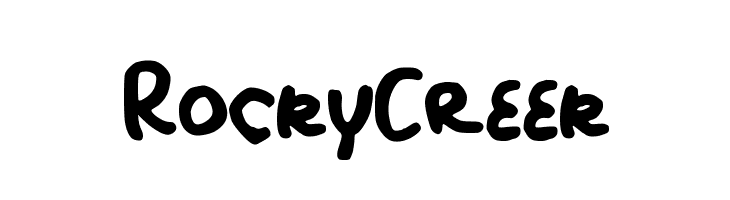
A lively, handwritten font with playful and dynamic strokes.
( Fonts by Creativework69 Studio )
A bold, hand-drawn font with energetic, playful strokes and a modern edge.
A bold, brush-style font with dynamic, hand-painted strokes.
A bold, expressive handwritten font with dynamic strokes and artistic flair.
( Fonts by Khurasan )
A bold, distressed font with a rugged, textured appearance.
A bold, textured font with an edgy, hand-drawn style.
( Fonts by Tokokoo Studio )
A playful, hand-drawn font with a textured, rock-like appearance.
( Fonts by Astigmatic One Eye Typographic Institute - Brian J. Bonislawsky - astigmatic.com )
A bold, dripping font with a horror-themed, melting appearance.
A bold, dripping font with a horror-themed style.